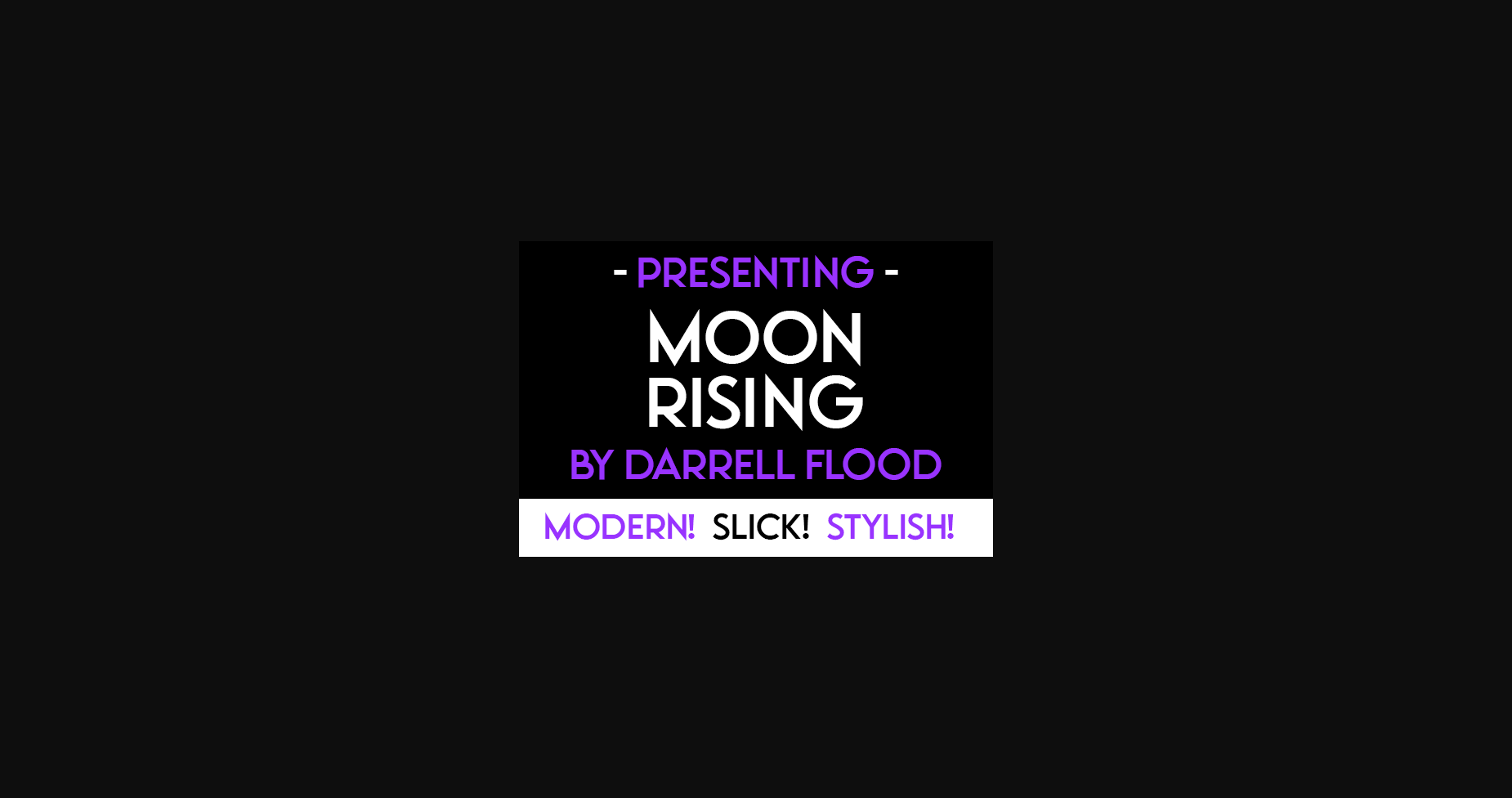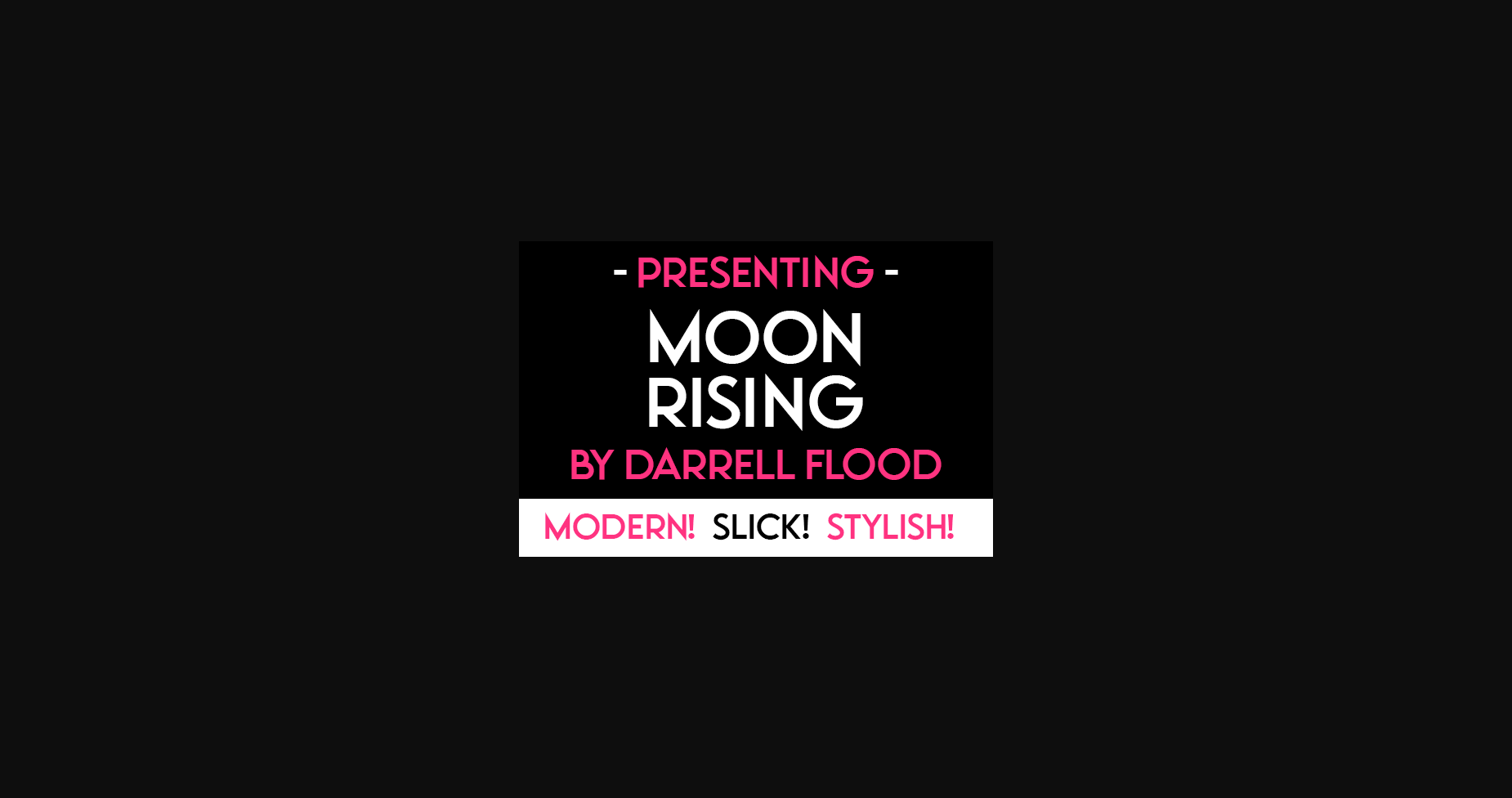
Moon Rising Font
About Moon Rising Font
Moon Rising is an authentic, simple and modern sans serif font. It is perfect for futuristic creations, science related designs and tech presentations!